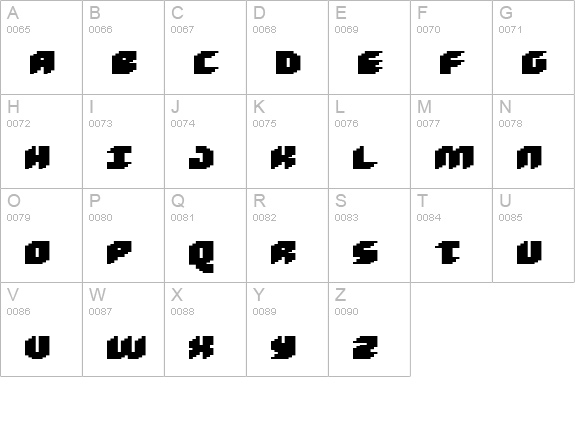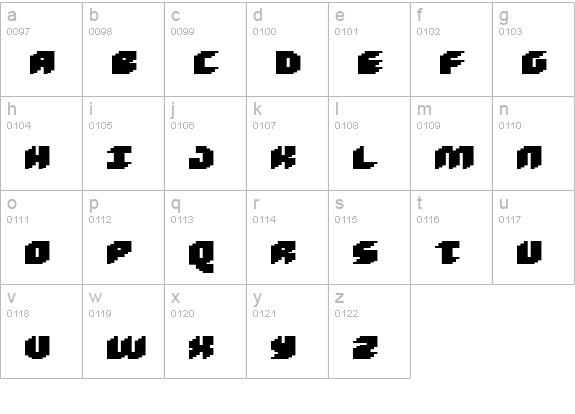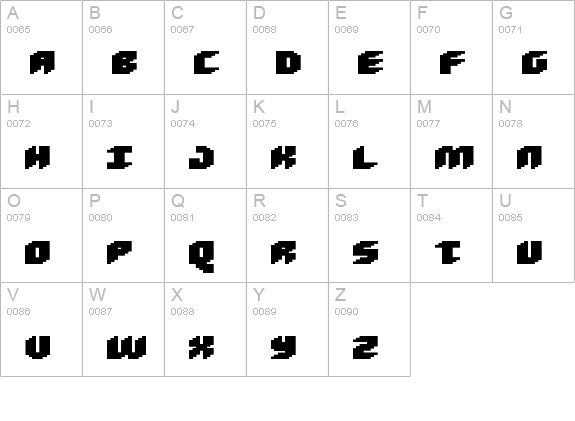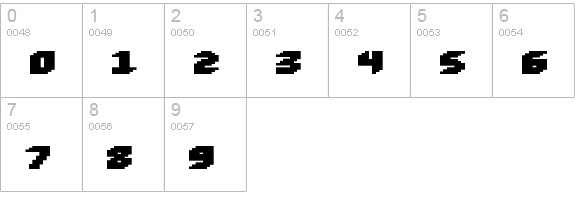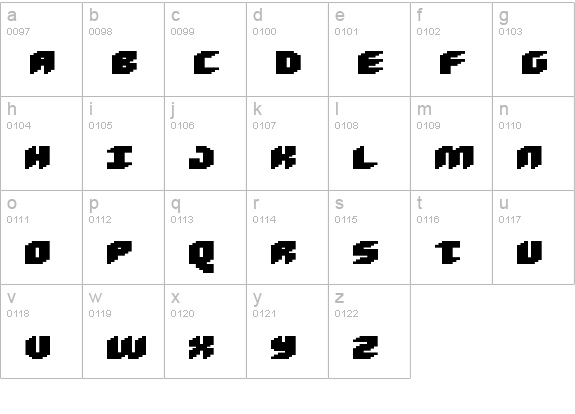
Loud noise Black is a maximum-weight, dramatic variant in the Loud typeface family \xE2\x80\x94 well suited to maximum-impact headlines, posters, and packaging.
Loud Noise Black is a bold and impactful font that commands attention with its strong, eye-catching appearance. Its thick, blocky letterforms exude power and authority, making it the perfect choice for headlines, posters, and other design projects that require a bold statement. Despite its boldness, Loud Noise Black retains a sense of modern elegance, making it a versatile option for a wide range of creative applications. This striking font is available for free download at FontsMarket.com, where you can easily access and use it in your projects without any cost. Whether you're looking to make a statement with your design or simply want to add a touch of boldness to your typography, Loud Noise Black is sure to make a lasting impression. Download it now and unleash its powerful presence in your designs.